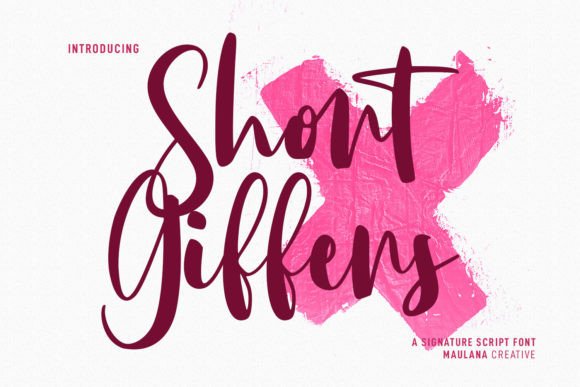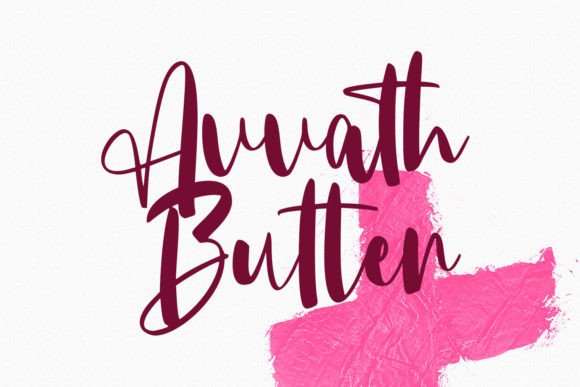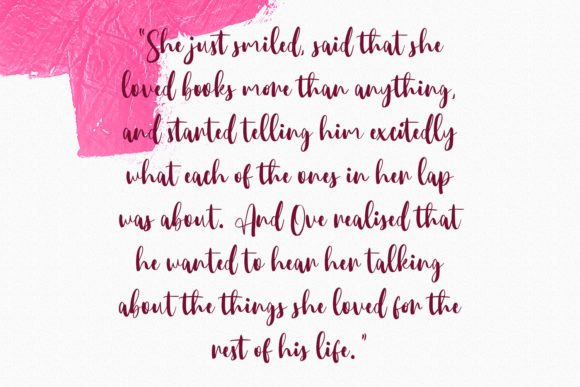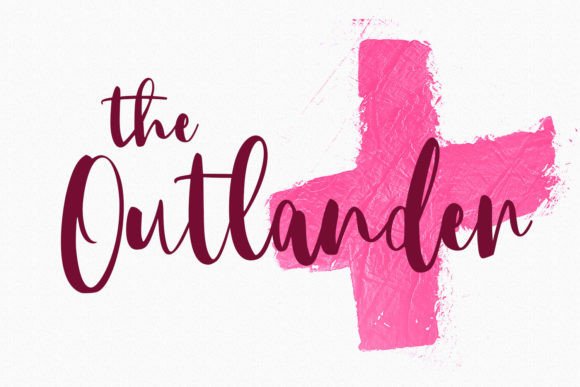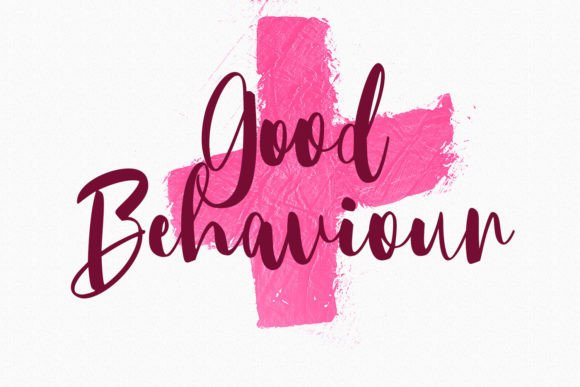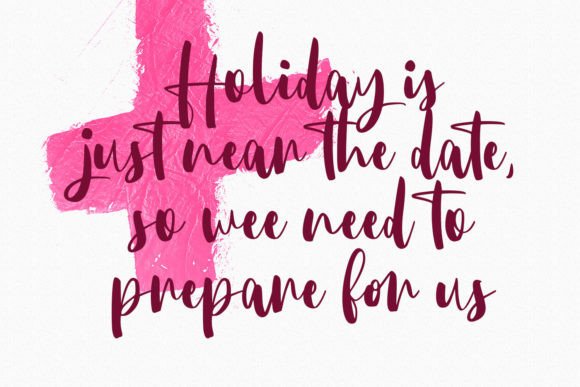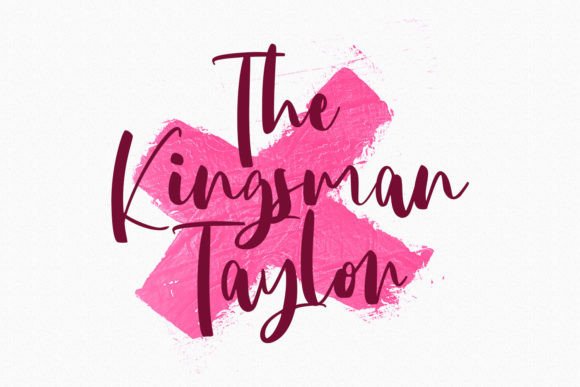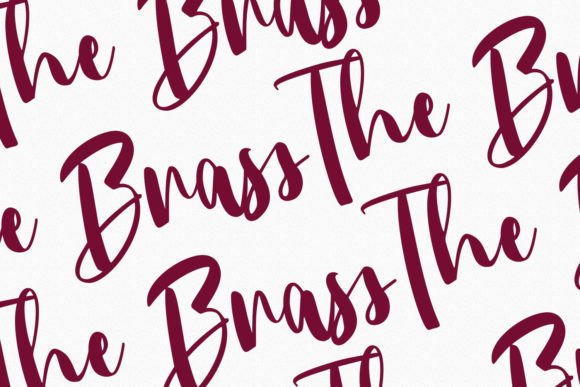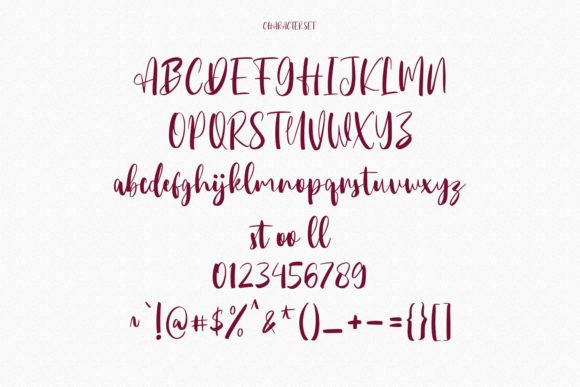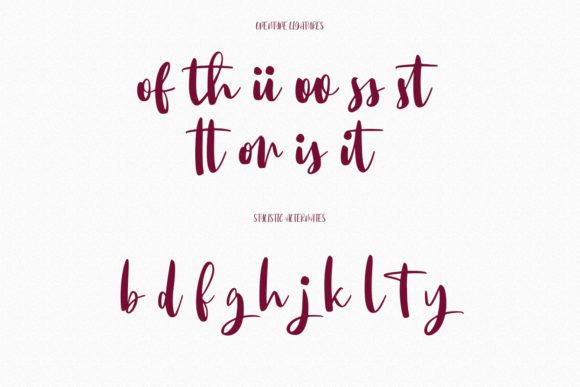
Short Giffers Font
Short Giffers is not just a font; it’s a creative companion that injects a playful and casual spirit into your design projects. With its upright and casual script style, it’s a typeface that stands out for its medium-contrast strokes, lively characters, and thoughtful design elements, including ligatures and stylistic alternates. This font is not just a tool; it’s an invitation to explore your creativity and make your designs truly unique.
The medium-contrast strokes of Short Giffers strike a balance between readability and visual interest. This feature makes it adaptable to various design contexts, allowing it to shine in both headline applications and longer text passages. Whether you’re working on a logo, social media graphics, movie titles, or book titles, Short Giffers brings a distinctive and engaging touch to your text.
One of the standout features of Short Giffers is its fun characters and ligatures. These design elements add a touch of whimsy and creativity to the font, making it perfect for projects where you want to convey a sense of playfulness. The ligatures, in particular, enhance the fluidity and cohesion of the characters, creating a more dynamic and visually appealing text.
In addition to ligatures, Short Giffers offers stylistic alternates, providing you with even more creative options. This allows you to experiment with different letterforms and tailor the font to suit your specific design vision. The versatility of Short Giffers shines through, making it an excellent choice for both short and long text passages.
When paired with sans or serif fonts, Short Giffers becomes a powerful tool for creating harmonious and visually striking designs. It’s not just about individual characters; it’s about the overall visual language that Short Giffers helps you create.
So, whether you’re a seasoned designer or just starting your creative journey, Short Giffers is there to spark your imagination and elevate your designs. It’s not just a font; it’s an opportunity to make stunning and distinctive work that reflects your unique style and creative vision. Embrace the charm of Short Giffers and let your creativity flow!